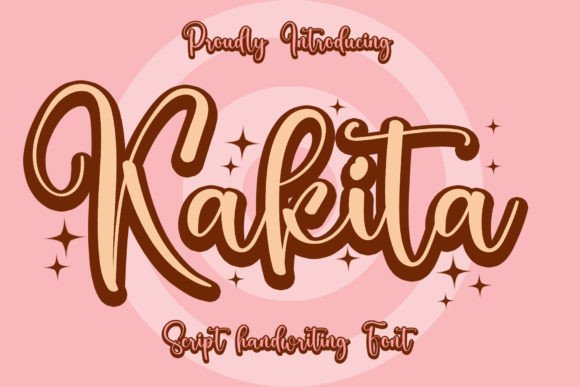
Journey into the realm of exquisite typography with Kakita Font, a captivating script font brimming with elegance and charm. Specially crafted by the renowned YanStudio, Kakita is not just a font; it's an artistic masterpiece that elevates your designs to new heights of sophistication.
Immerse yourself in the intricate swirls and graceful curves of Kakita, a font that exudes a touch of magic. Its enchanting personality adds a dash of allure to any creative project, whether it's designing captivating logos, crafting heartfelt invitations, or creating eye-catching social media posts.
With Kakita, you have the power to transform ordinary words into captivating works of art. Its fluidity mimics the natural flow of a handwritten script, evoking a sense of authenticity and warmth that resonates with your audience.
Explore the boundless possibilities of Kakita, a font that seamlessly adapts to your creative vision. Whether you're a seasoned designer or just starting your artistic journey, Kakita is your perfect companion. Its versatility knows no bounds, lending its charm to a myriad of projects, from business letters and elegant invitations to whimsical greeting cards and vibrant posters.
With Kakita, your designs will radiate a timeless elegance that captures the hearts of your audience. Experience the magic of Kakita today and embark on a creative journey where art and beauty intertwine seamlessly.